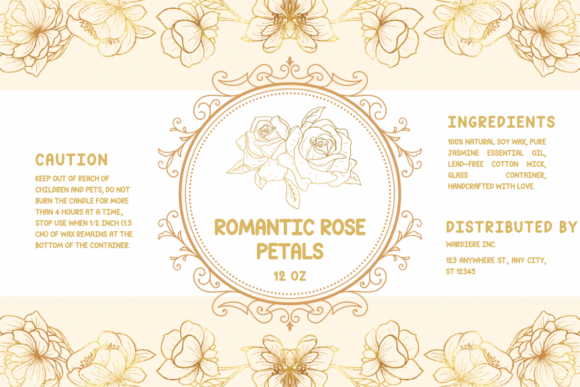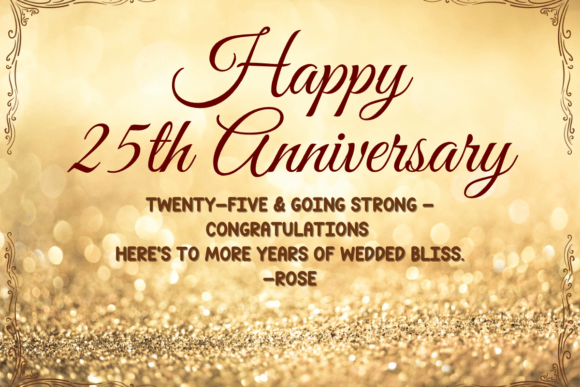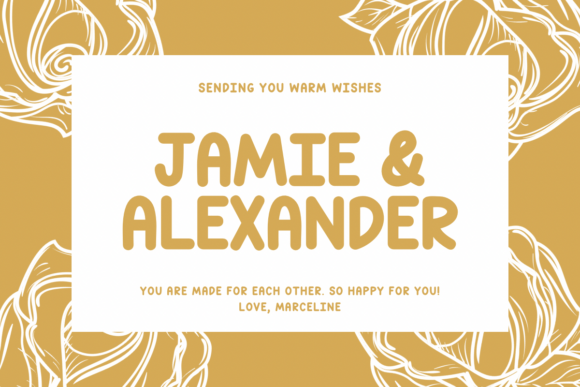
The Fancy Book Font: A Designer’s New Best Friend
I’ll never forget the time I was working on a project for a client who wanted a custom greeting card design. I had the perfect concept in mind, but I was struggling to find the right font to bring it all together. That’s when I stumbled upon the Fancy Book font, a beautiful sans serif font that has since become a staple in my design toolkit.
Fancy Book is more than just a pretty face – it’s a versatile font that can be used for a wide range of creative projects, from taking notes and writing diaries to making banners, mugs, cards, shirts, and more!
- ✨ Clean and modern design: Fancy Book has a sleek, sans serif design that’s perfect for creating modern and sophisticated designs.
- ✅ Highly legible: The font is easy to read, even at small sizes, making it perfect for body text and captions.
- 🎉 Versatile: Fancy Book can be used for a wide range of projects, from digital designs to print materials.
While Fancy Book is an amazing font, there are a few things to keep in mind:
- 🤔 Limited glyphs: Fancy Book has a limited number of glyphs, which can make it less suitable for designs that require a lot of special characters.
- ⚠️ Not ideal for body text: While Fancy Book is legible, it’s not the best choice for long blocks of body text. It’s better suited for headings, titles, and short paragraphs.
Fancy Book supports OpenType features, which allow you to access additional glyphs and stylistic alternates. To access these features, follow these steps:
The Designer Inspiration Behind Fancy Book
Fancy Book was designed with the goal of creating a clean, modern, and versatile font that could be used for a wide range of creative projects. The designer drew inspiration from classic sans serif fonts, combined with a dash of modern flair.
| Author | Chonada |
Q: What is Fancy Book font?
A: Fancy Book is a sans serif font designed for creative projects, including notes, diaries, greeting cards, and more.
Q: Is Fancy Book suitable for body text?
A: While Fancy Book is legible, it’s not ideal for long blocks of body text. It’s better suited for headings, titles, and short paragraphs.